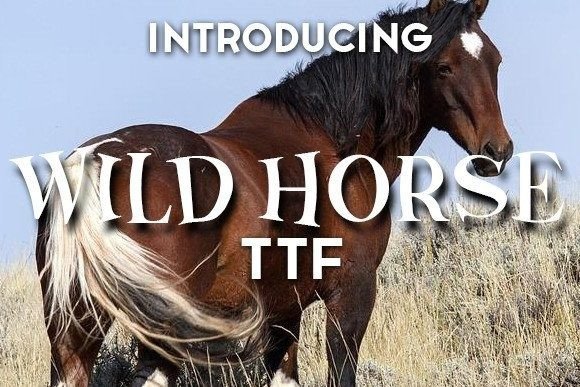
Get ready to saddle up and ride into a world of playful and unforgettable typography with our Wild Horse font! This whimsical display font is the perfect tool to inject a touch of lightheartedness and charm into your designs.
Crafted by the brilliant Vladimirnikolic, Wild Horse is a spirited and expressive font that will add a touch of the wild west to your creations. Its playful curves and unique character will bring a smile to your face and inspire you to create designs that are both eye-catching and captivating.
Whether you're designing posters, flyers, or banners, Wild Horse is the perfect choice to add a touch of fun and excitement to your work. Its bold and playful nature will make your designs stand out from the crowd, ensuring that your message is heard loud and clear.